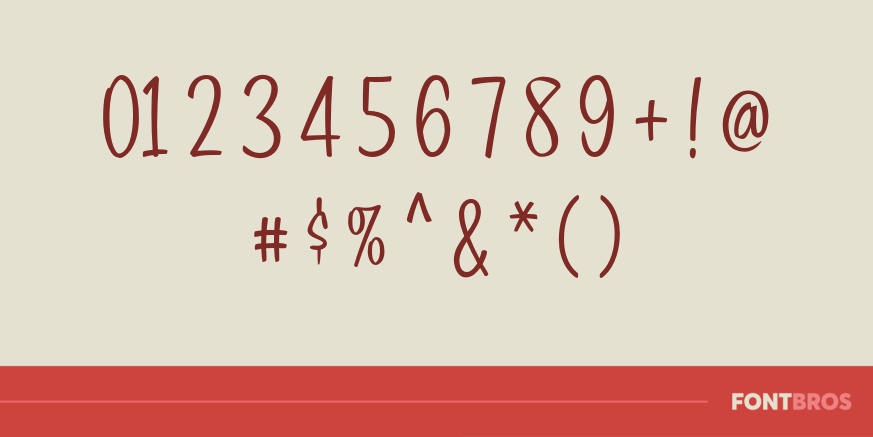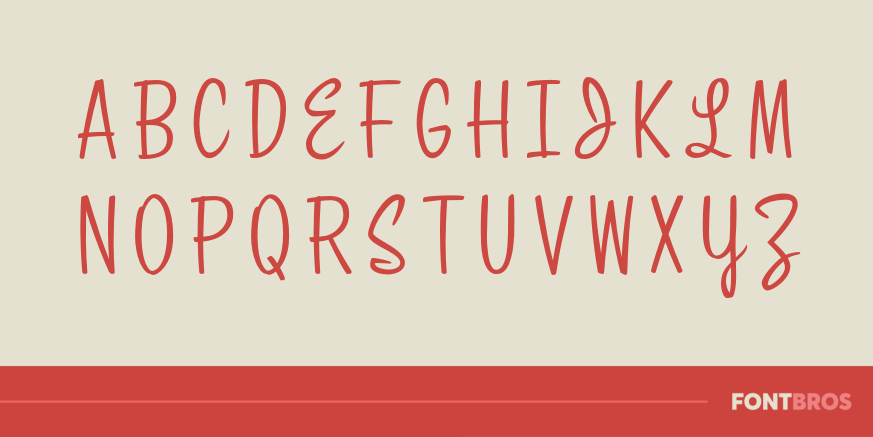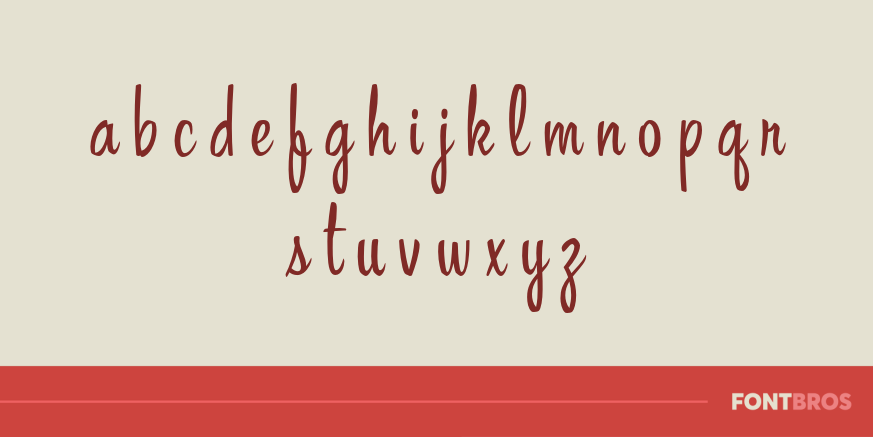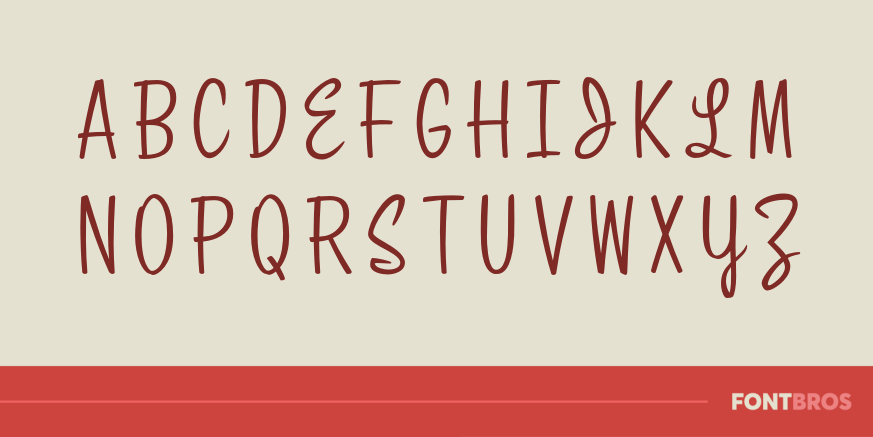
Singlesville Script
Font Family by Font Diner
Indulge in this classic retro brush-style script; perfect anytime you need a condensed upright script in those tight spaces!